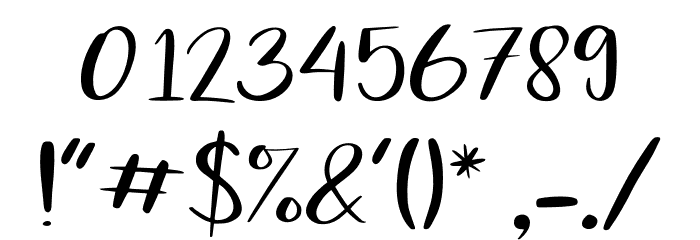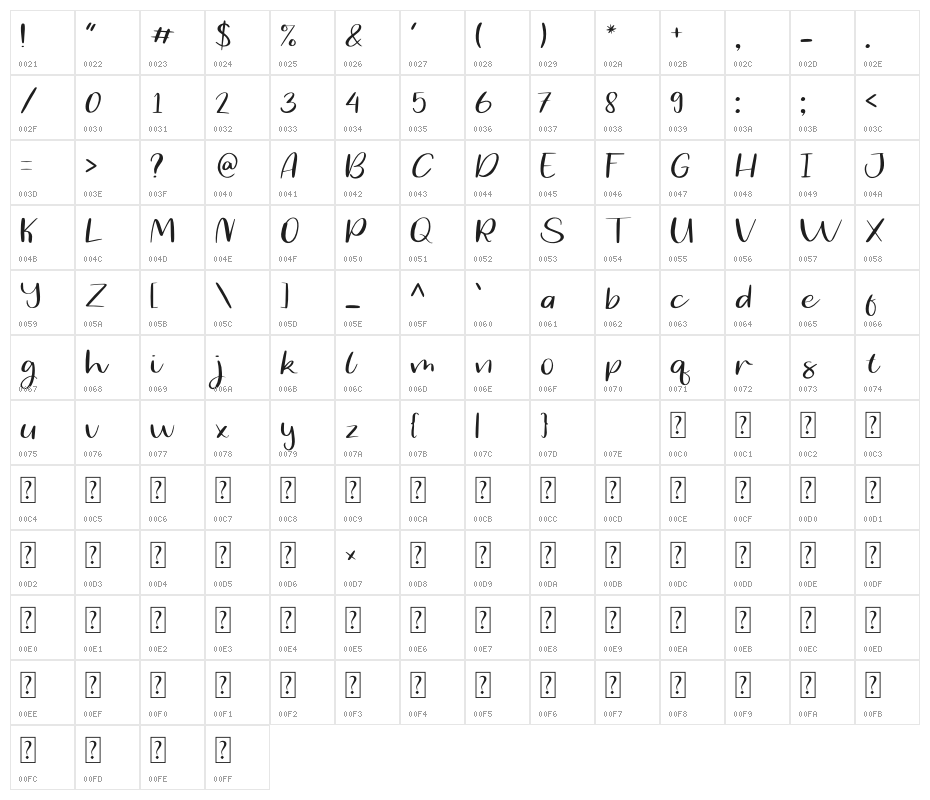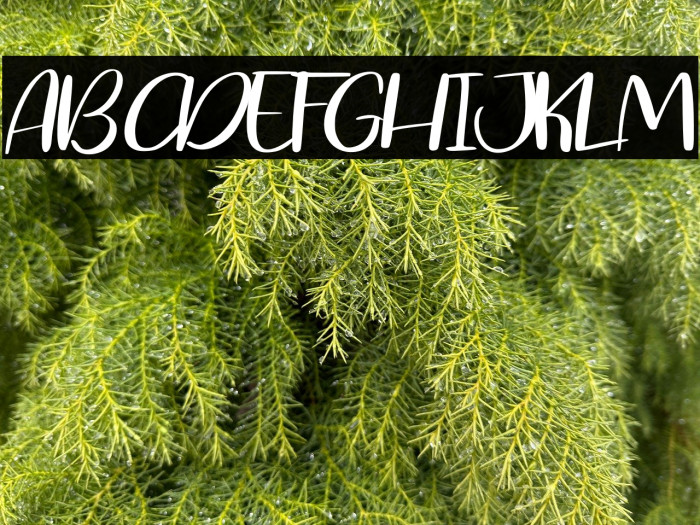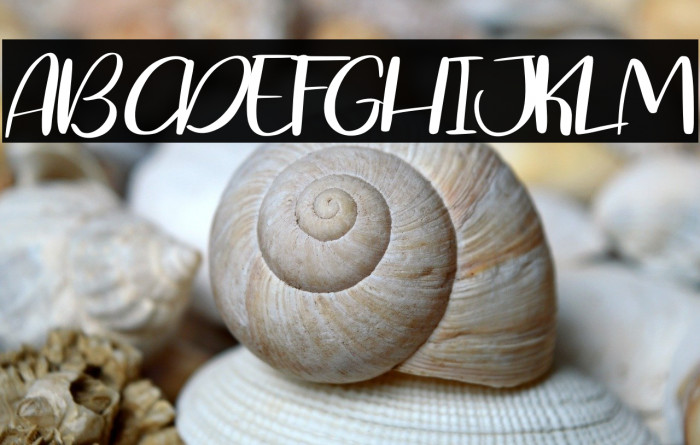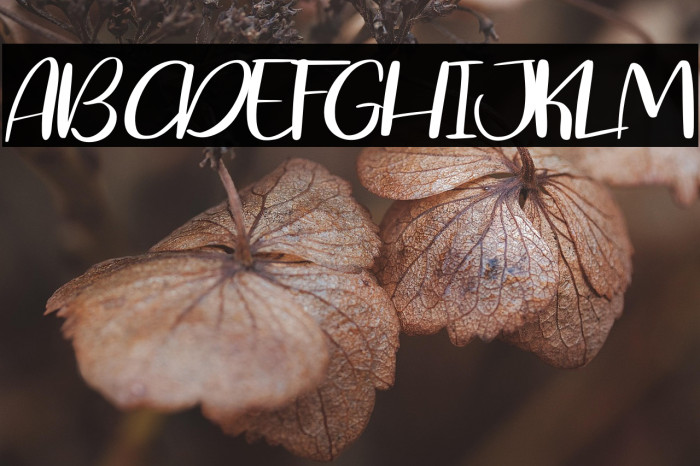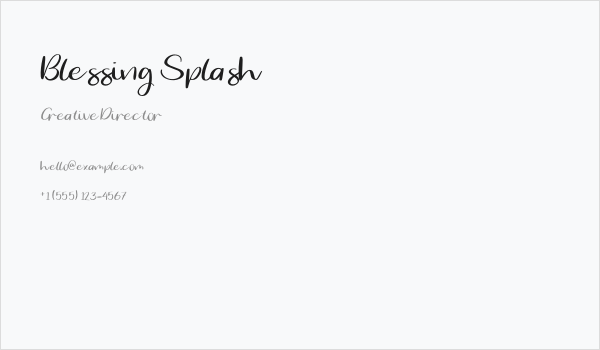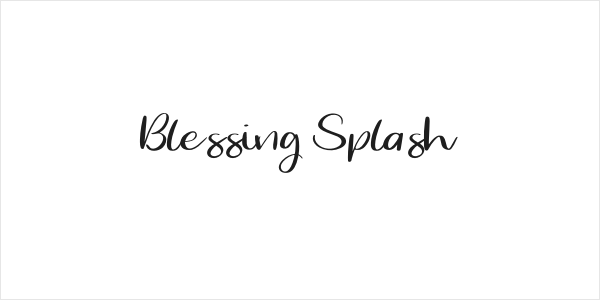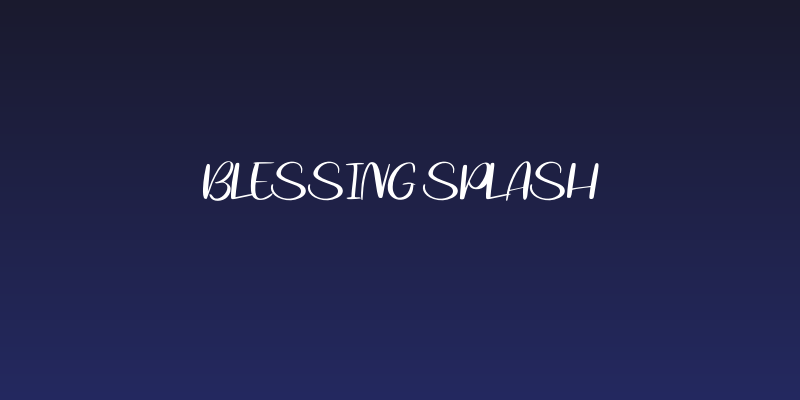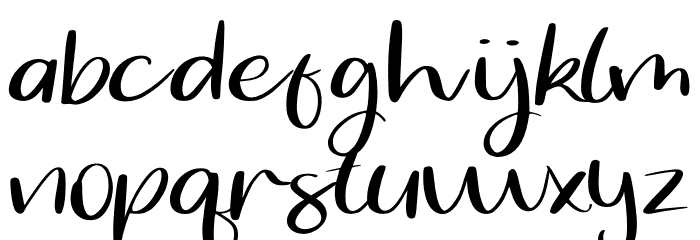
Blessing Splash Font
Blessing Splash Description
This font features a lively and expressive script style with a handwritten appearance. The letters are fluid and connected, giving a sense of motion and elegance. The uppercase letters are bold and slightly slanted, while the lowercase letters maintain a consistent flow with occasional loops and swirls. The numerals are clear and distinct, matching the overall playful yet sophisticated aesthetic. Special characters are well-integrated, maintaining the font's cohesive style. This font is ideal for projects that require a personal touch or a creative flair.